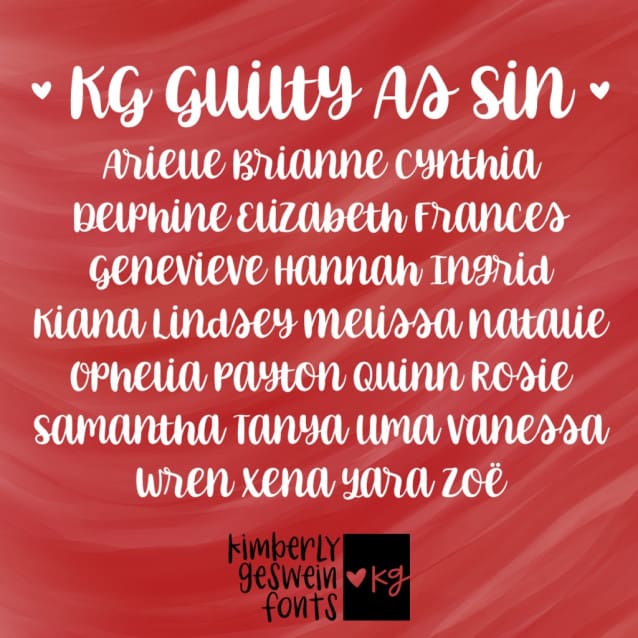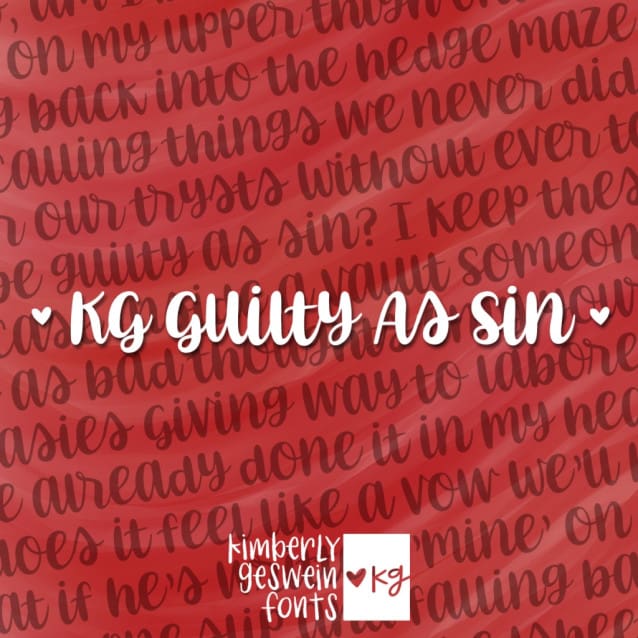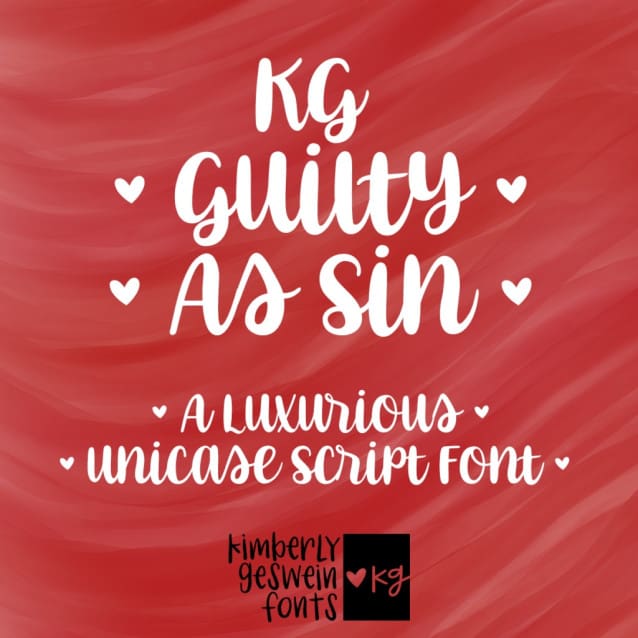
KG Guilty As Sin Font
KG Guilty As Sin Font: Curvy, unicase, connected. It won’t suit every project, but it’s a beautiful typeface perfect for a little feminine playfulness.